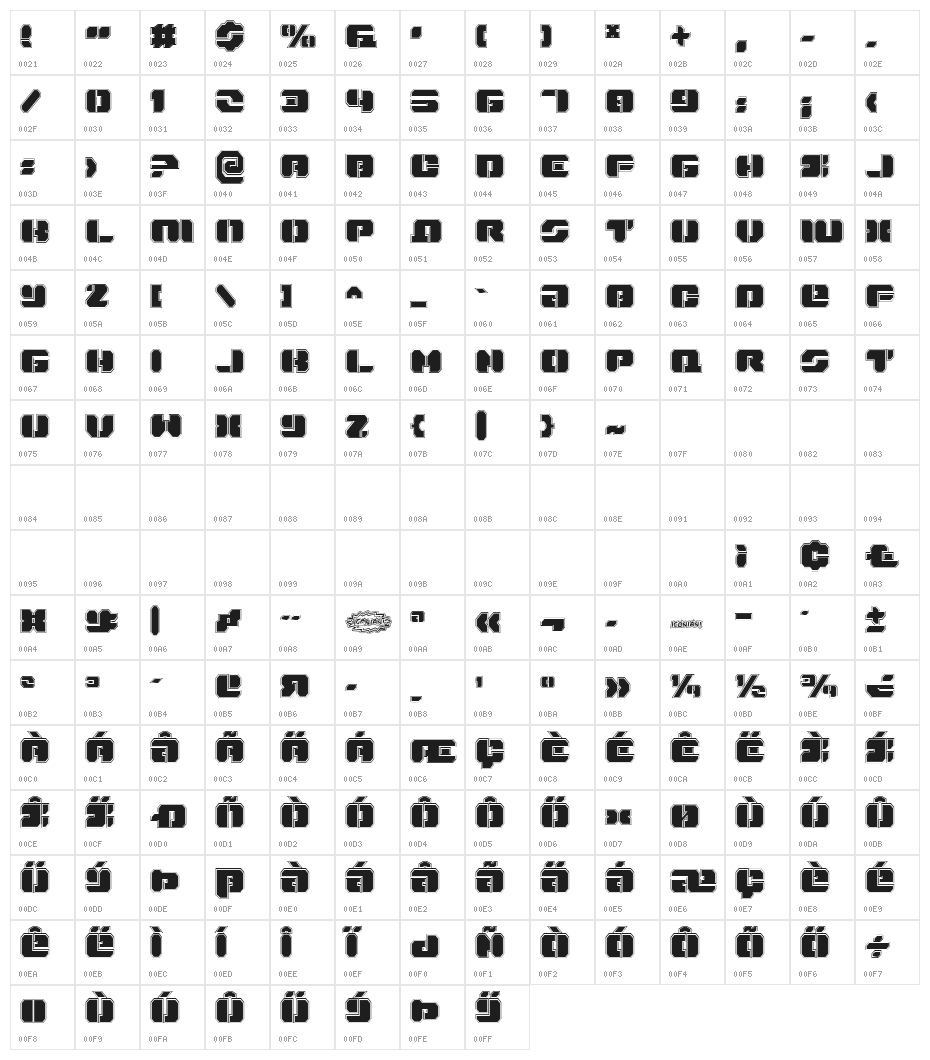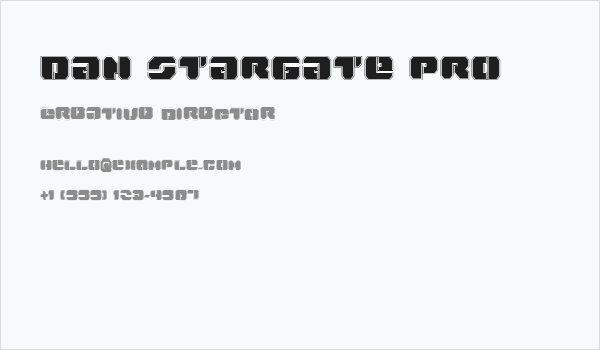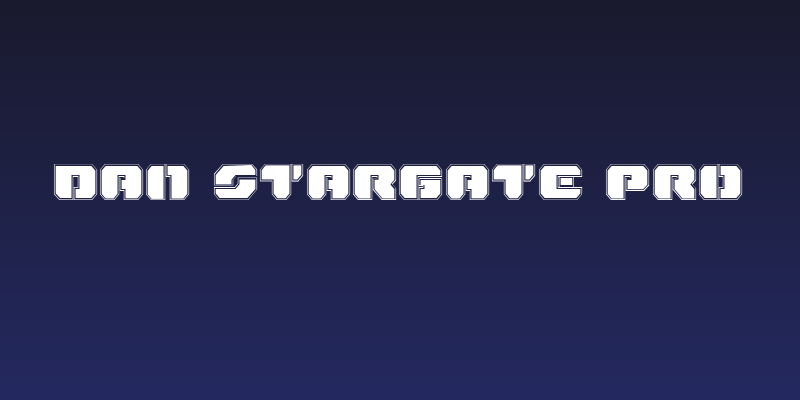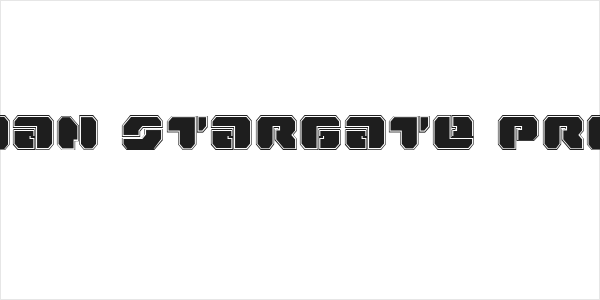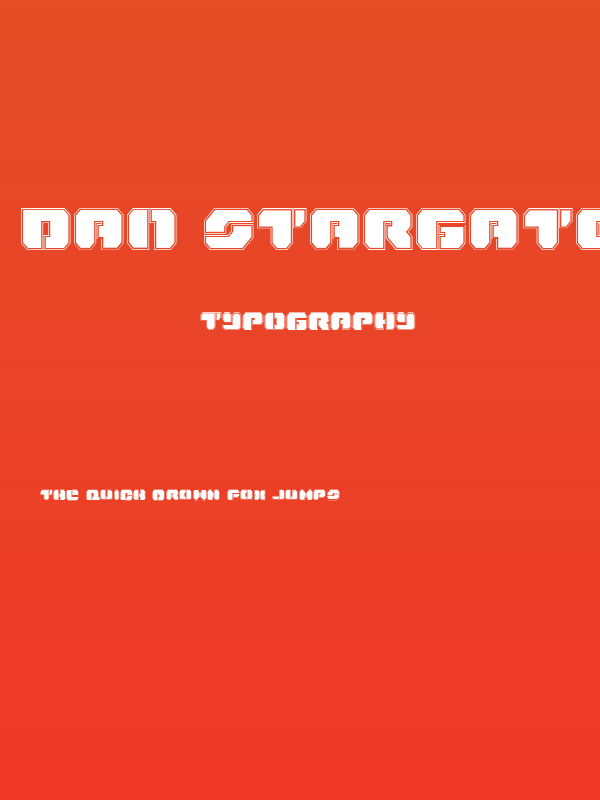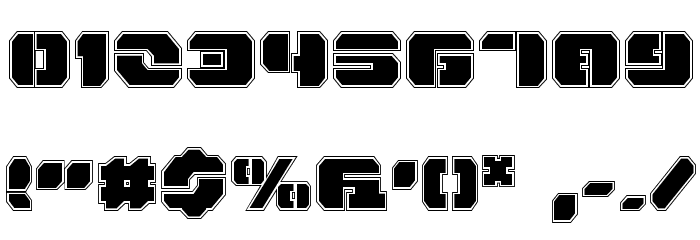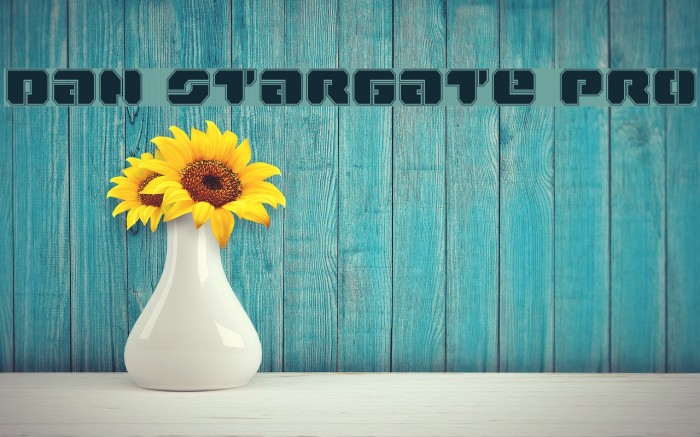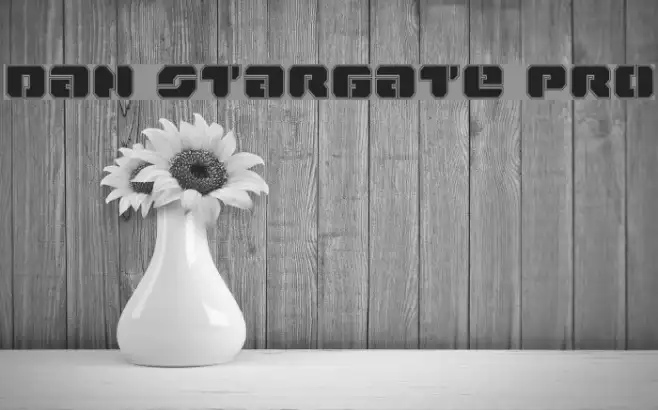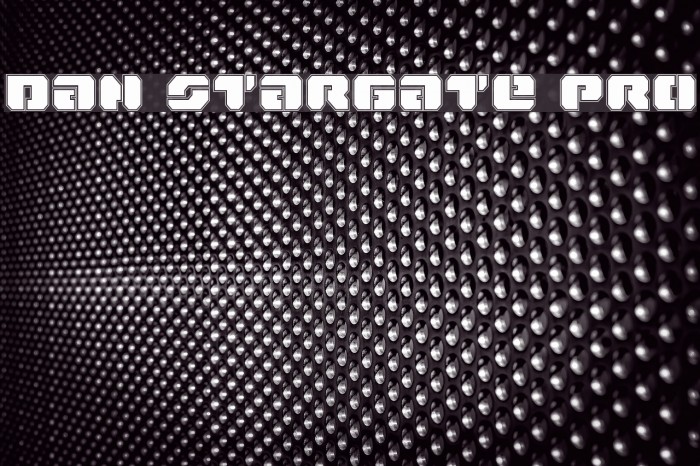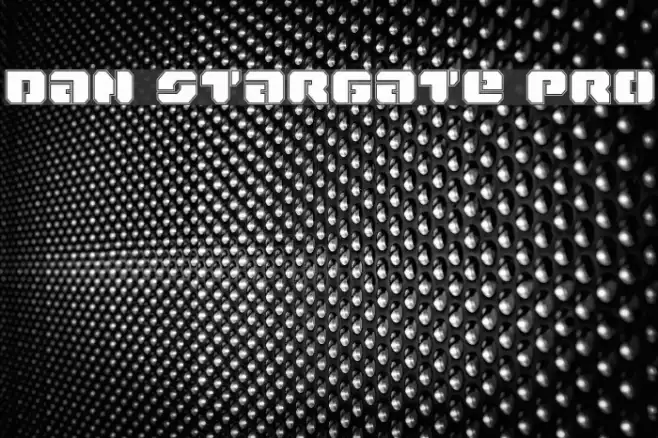
Dan Stargate Pro Font
Dan Stargate Pro Description
This font features a bold, futuristic design with a strong geometric structure. Each character is crafted with a distinct block-like appearance, incorporating sharp angles and clean lines. The font's style is reminiscent of digital or sci-fi themes, making it ideal for projects that require a modern and technological aesthetic. The uppercase and lowercase letters maintain a consistent width, contributing to a uniform look across text. The numbers and special characters are designed to match the overall style, ensuring cohesion throughout any text. The font's boldness and unique design make it stand out, perfect for grabbing attention.
| Overall Style | Futuristic |
| Proposed Projects | Ideal for technology branding, sci-fi movie posters, video game titles, and digital media. |